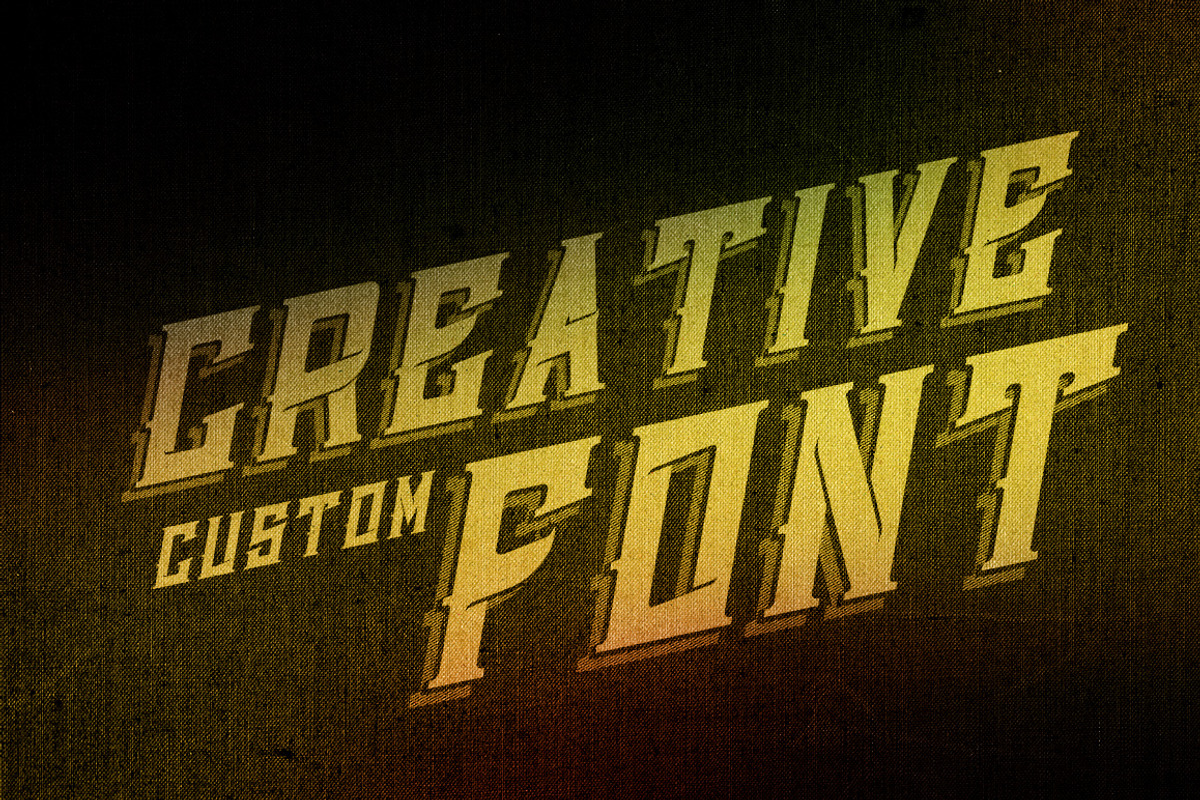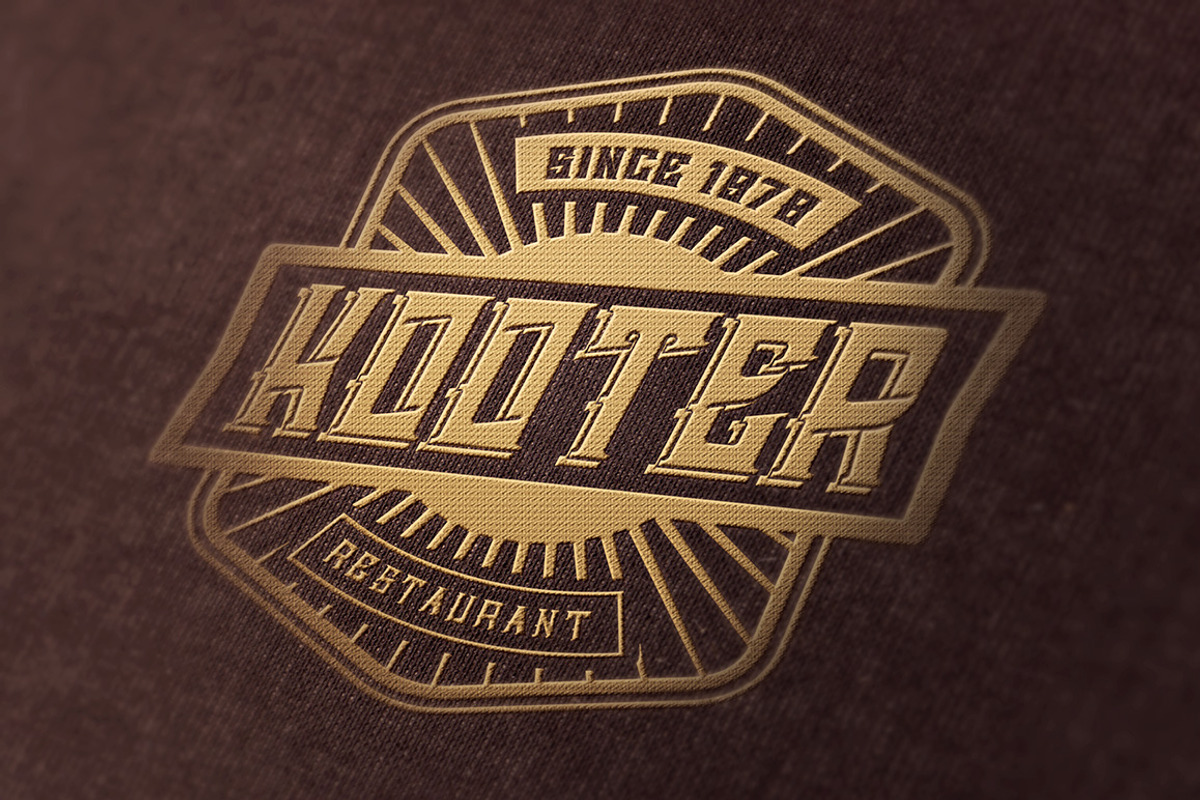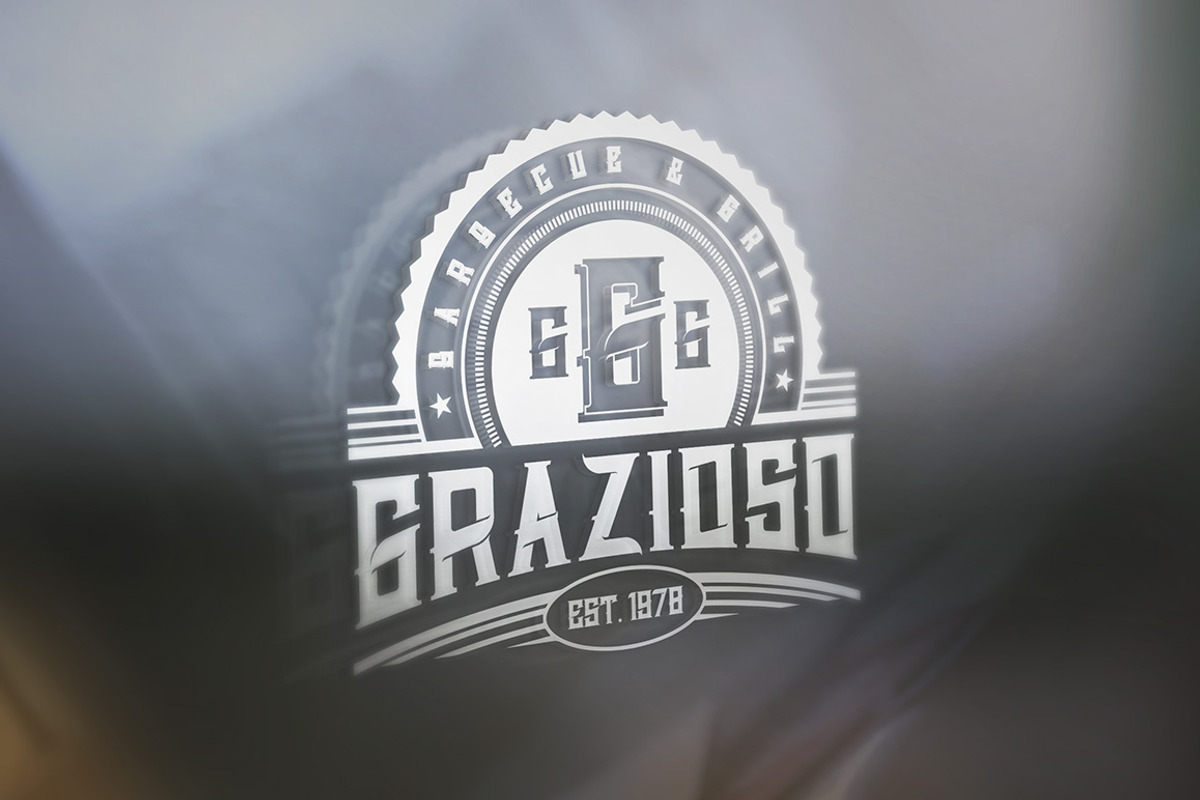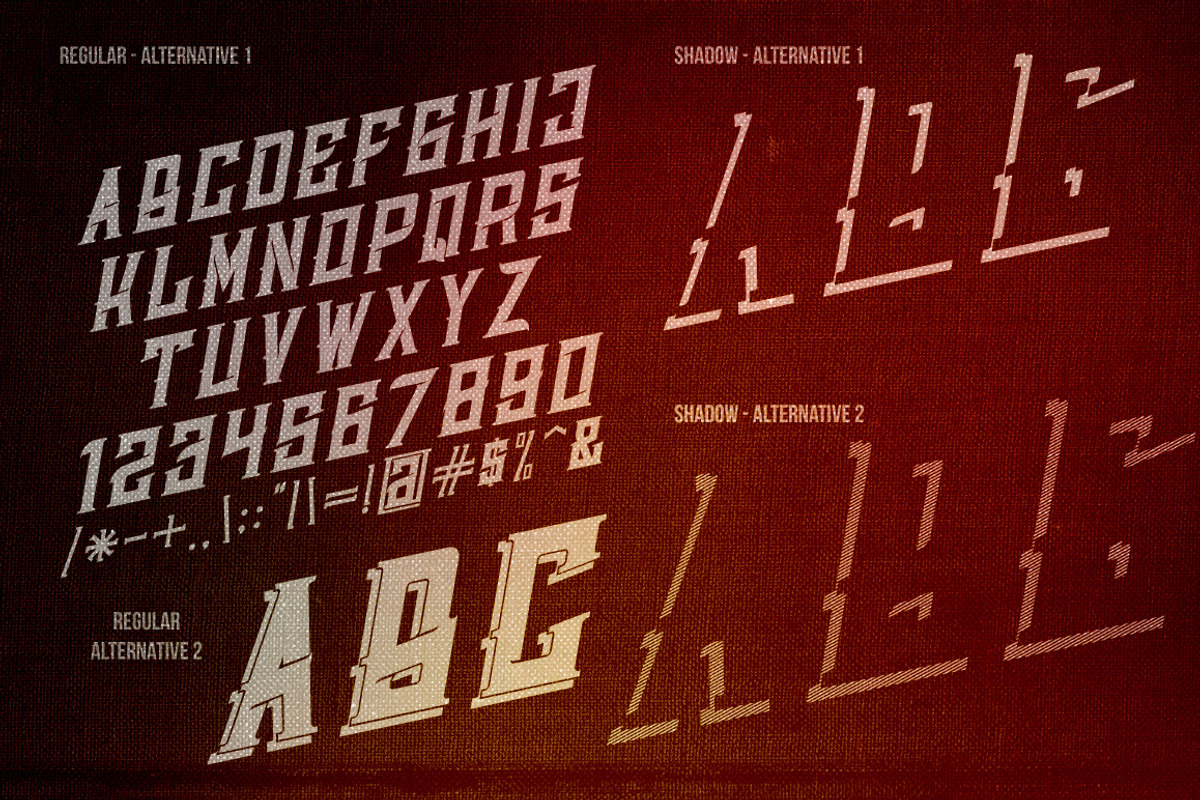
Grazioso Font
Grazioso Font by Cruzine is a font selected for branding, posters, packaging, typography.
Grazioso Font by Cruzine fits naturally into Branding, posters, packaging, typography.